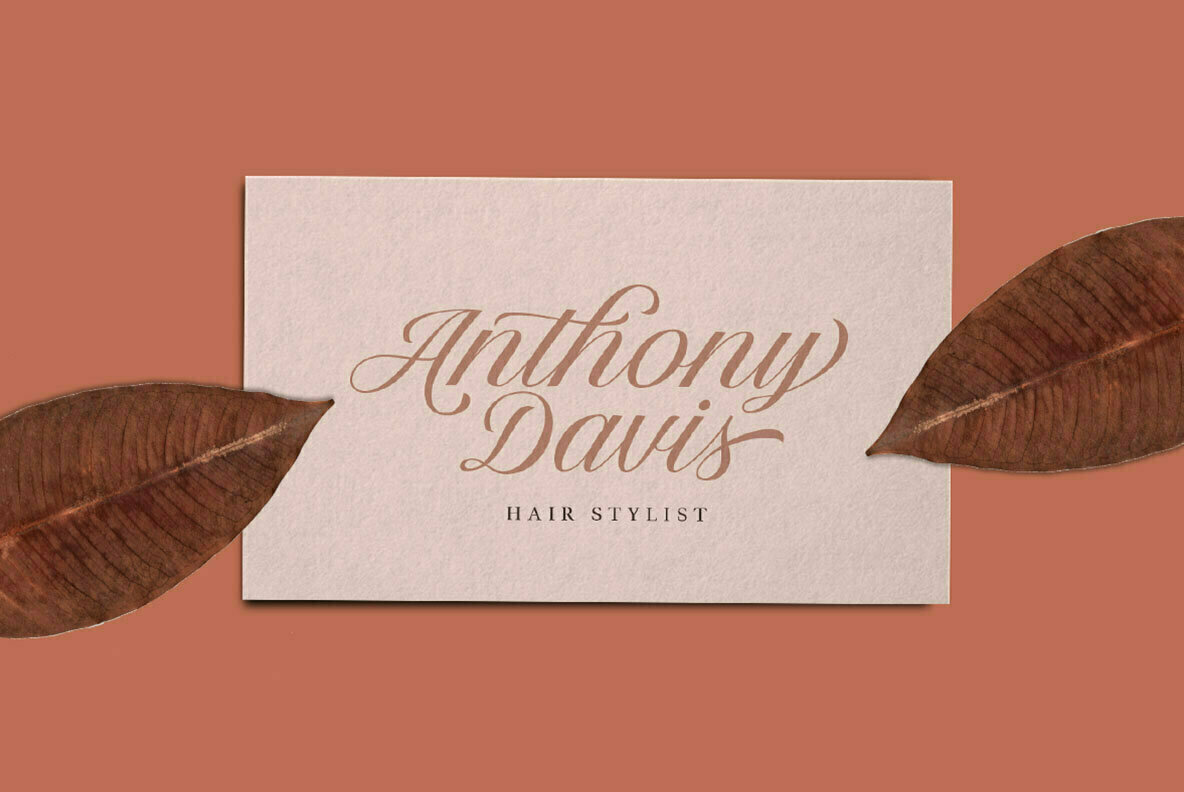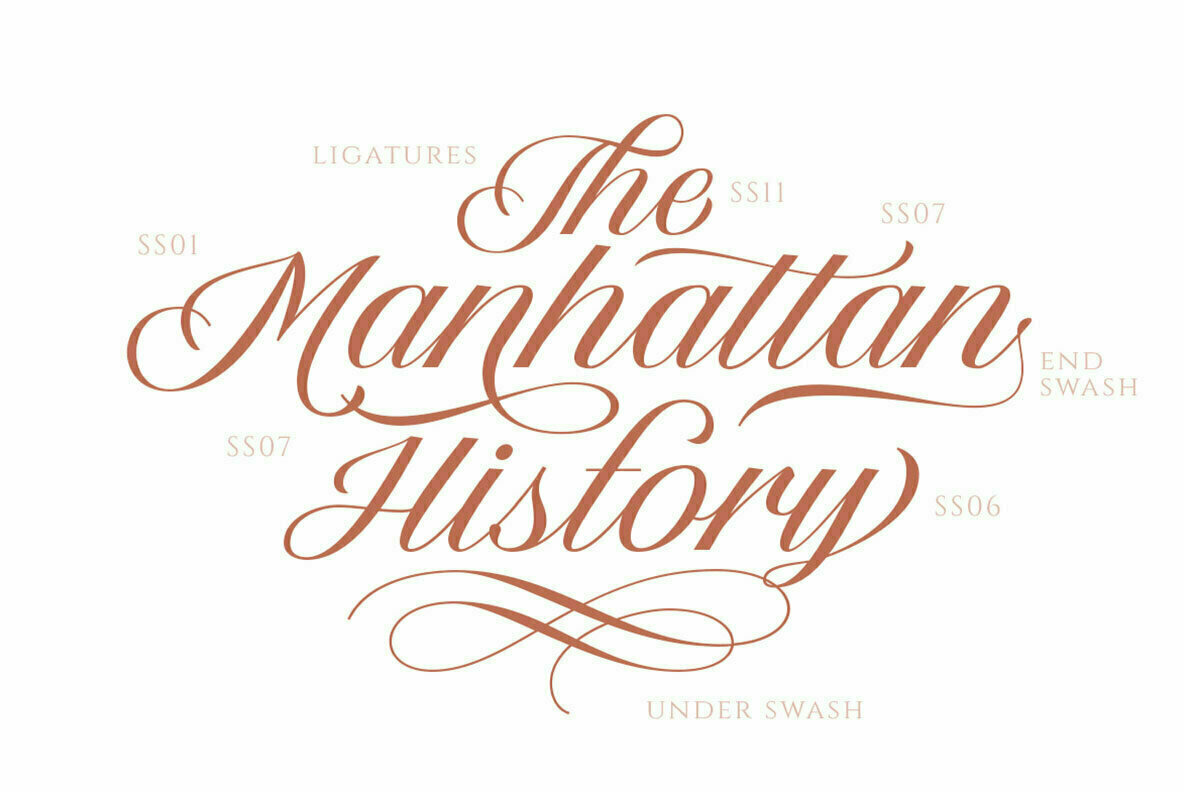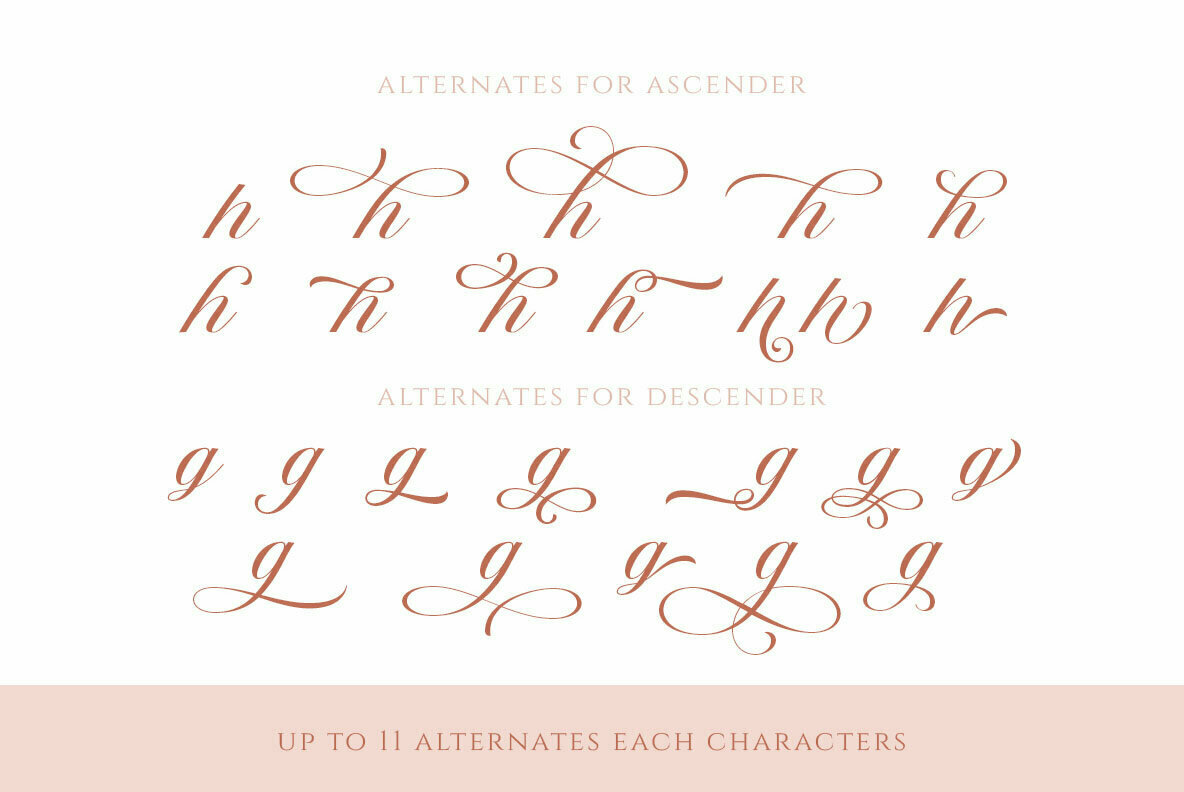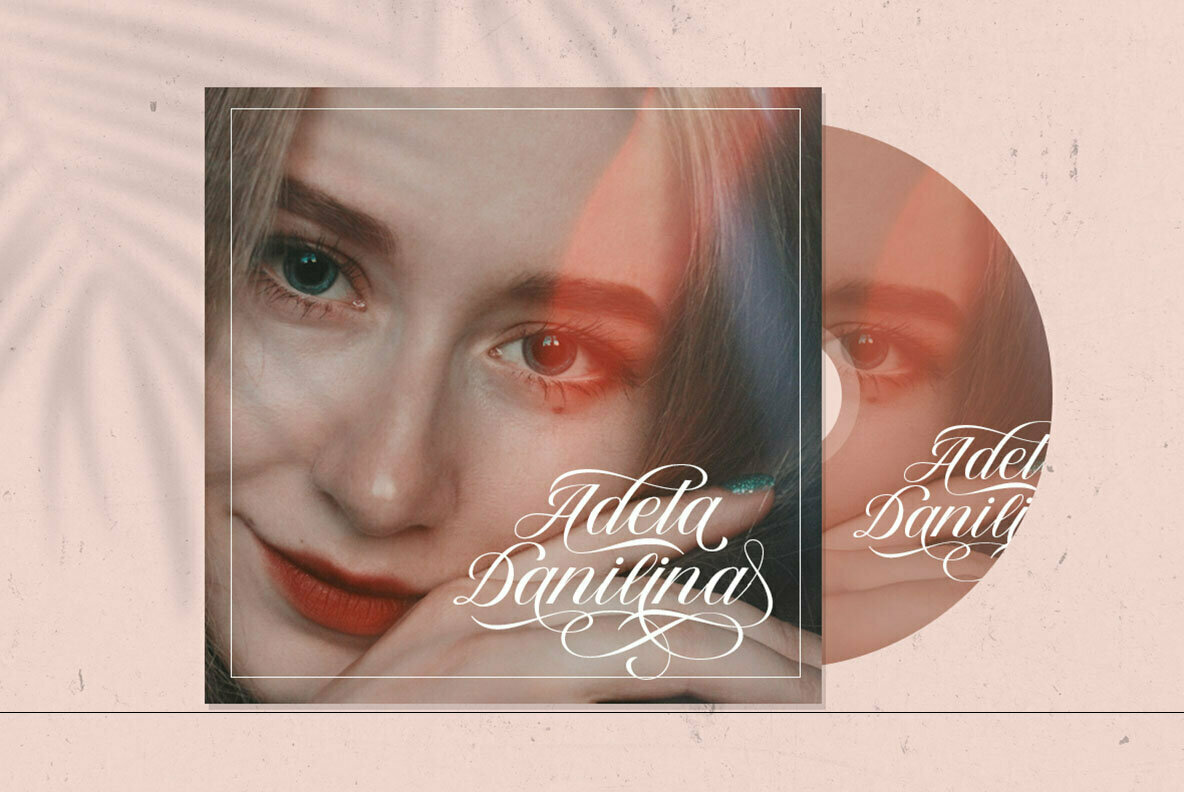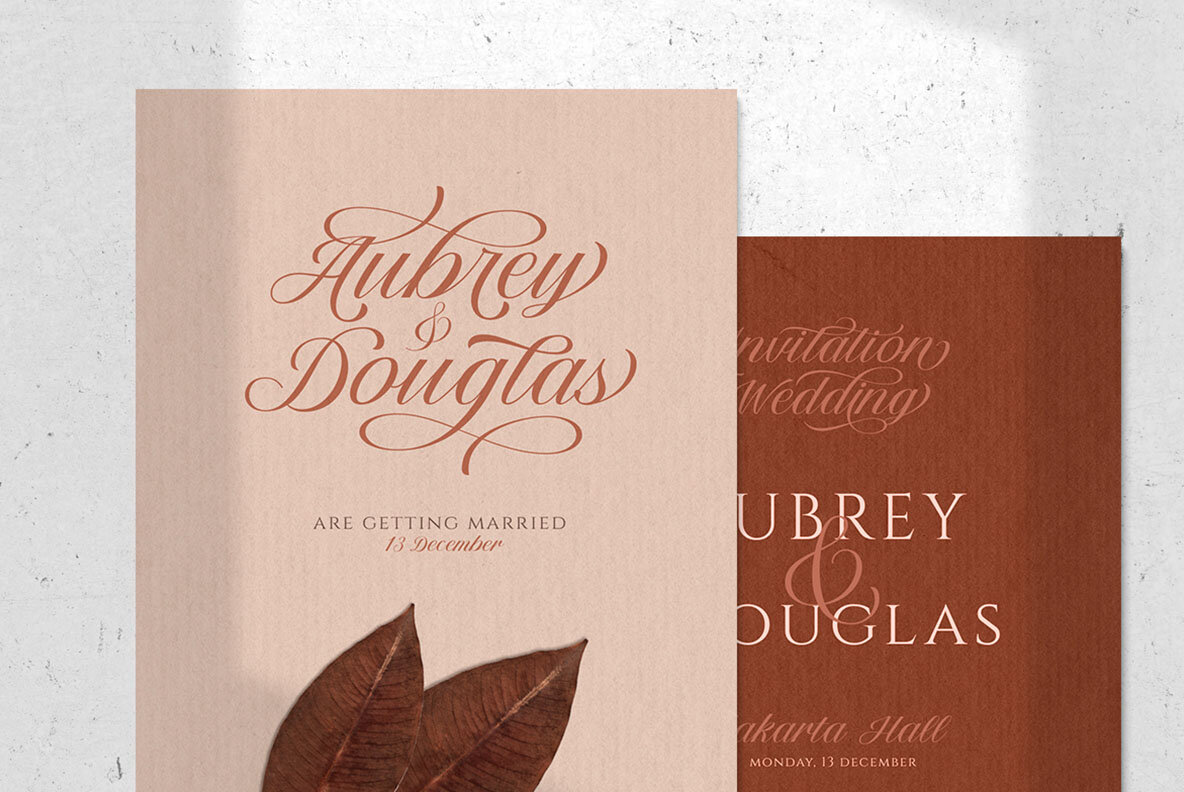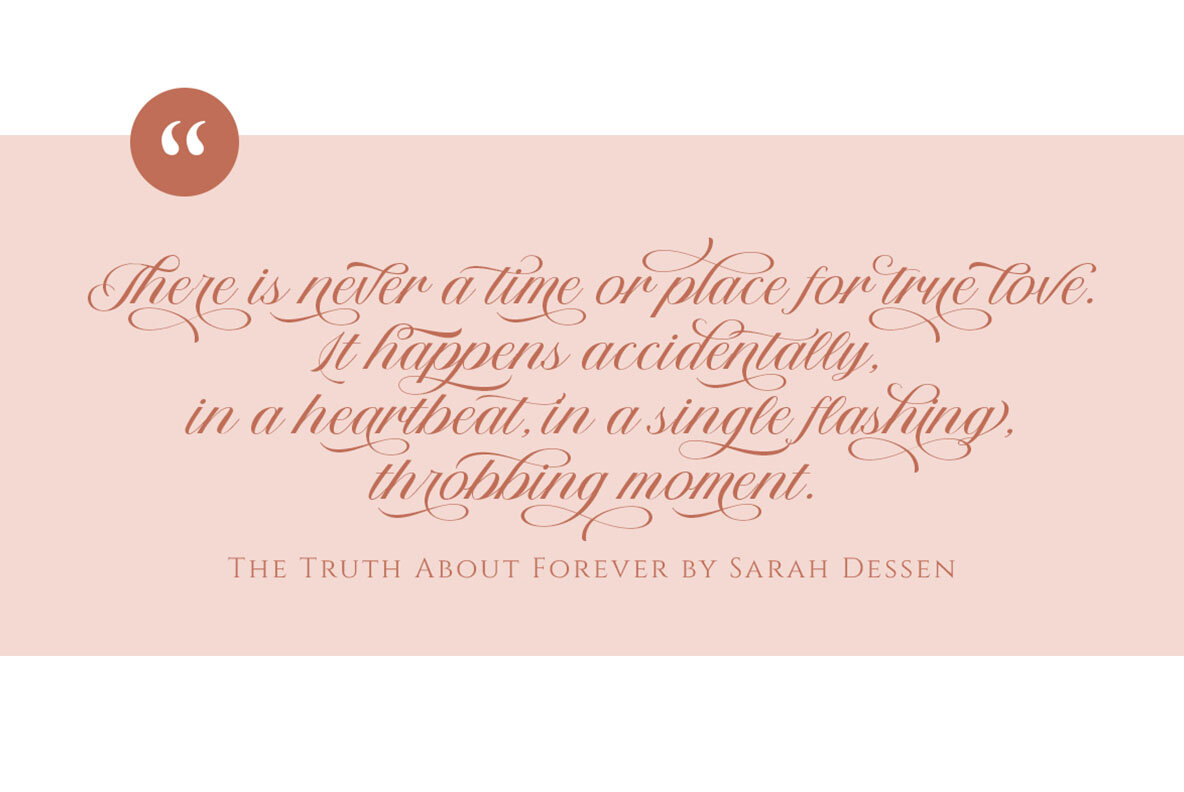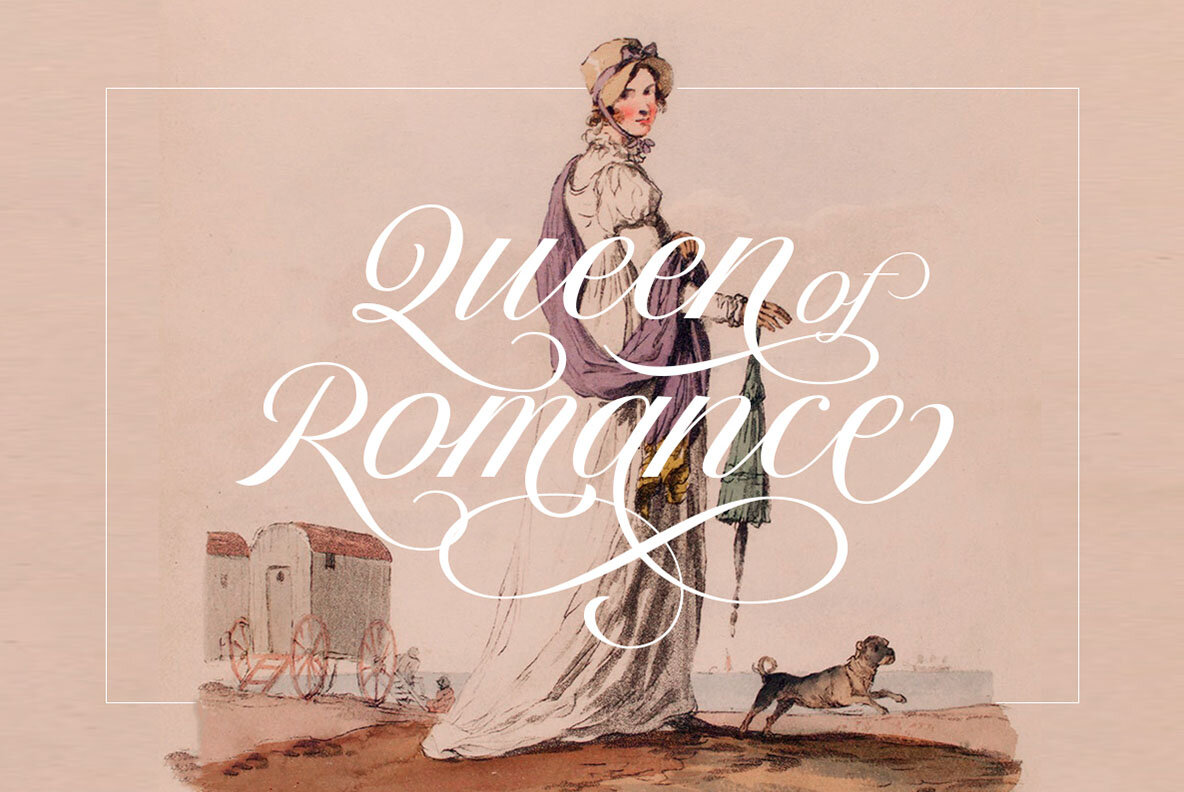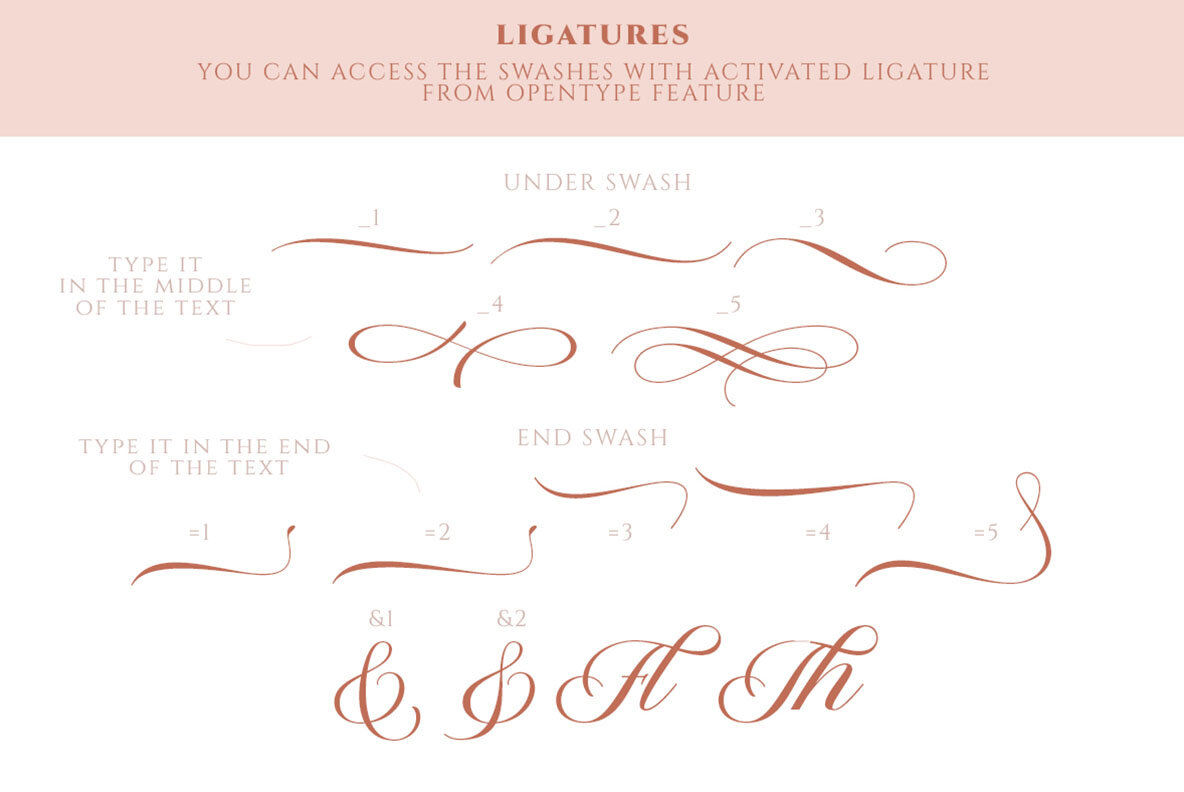
The Postgates Font
The Postgates, a meticulously crafted script font, invites you to explore a realm of elegance and luxury through its captivating design. Its array of stylistic alternates and swashes offers boundless possibilities for custom lettering, making it a quintessential choice for your fashion brand. Revel in the timeless appeal of a classic script that elevates your design projects with finesse.The Postgates: Sophisticated Script for Fashion Branding